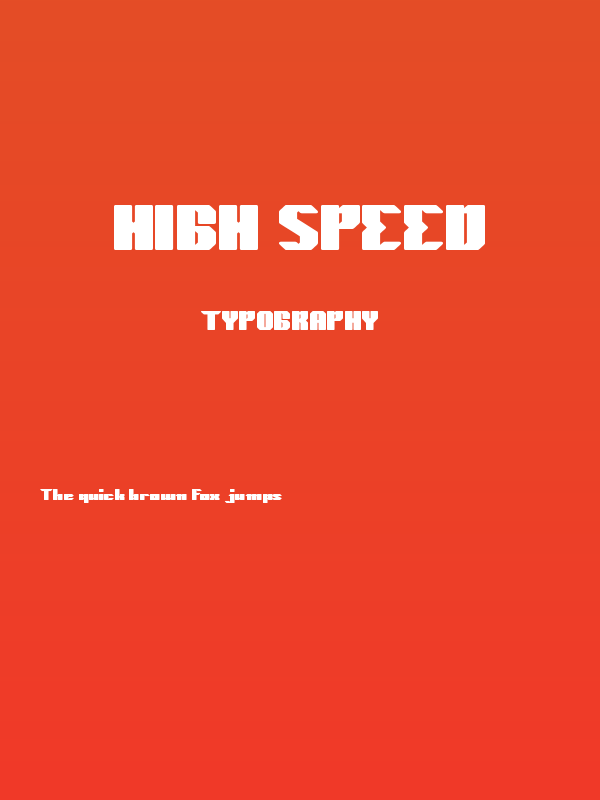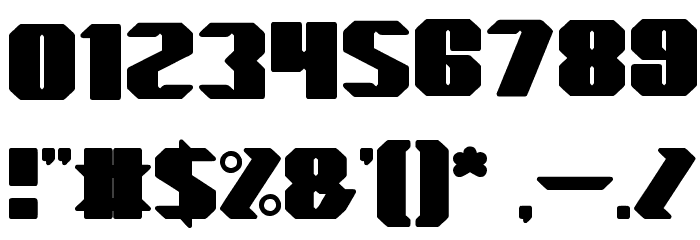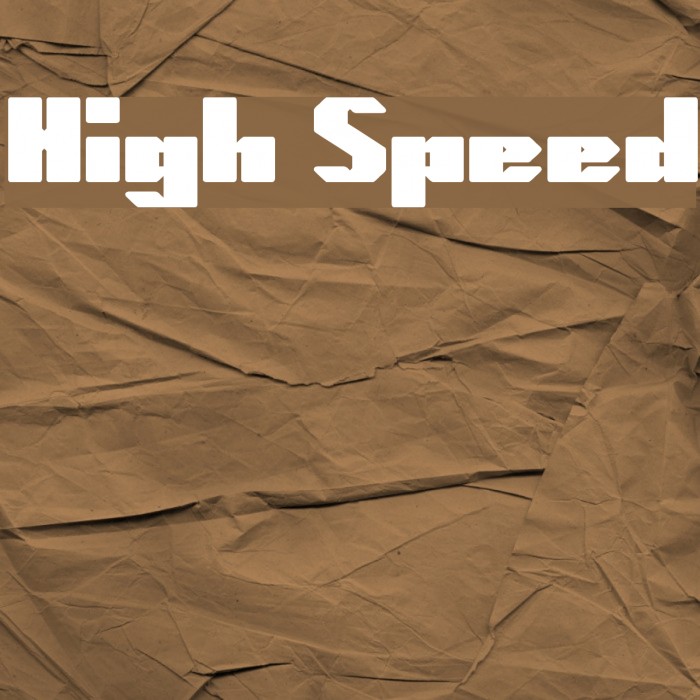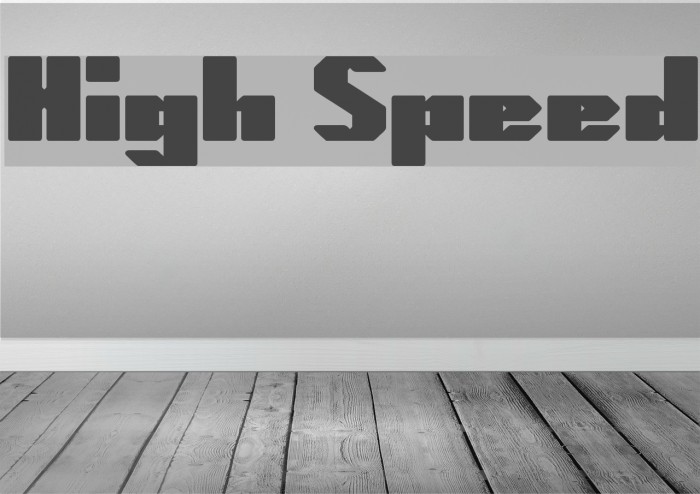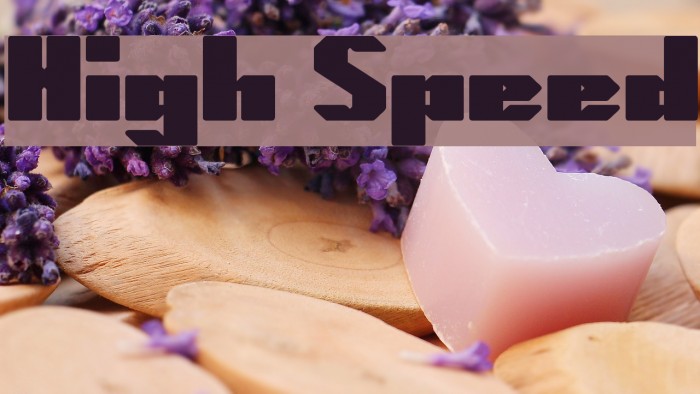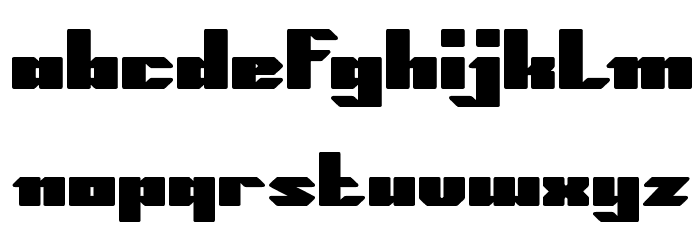
High Speed Font
High Speed Description
This font features a bold and geometric design with a strong presence. The characters are constructed with sharp angles and straight lines, creating a futuristic and industrial feel. The uppercase letters are particularly striking, with a blocky appearance that commands attention. The lowercase letters maintain the same angular style, ensuring consistency throughout the typeface. Numbers and special characters are equally bold, making them suitable for impactful displays. The overall design is reminiscent of digital or mechanical aesthetics, ideal for projects that require a modern and edgy look.